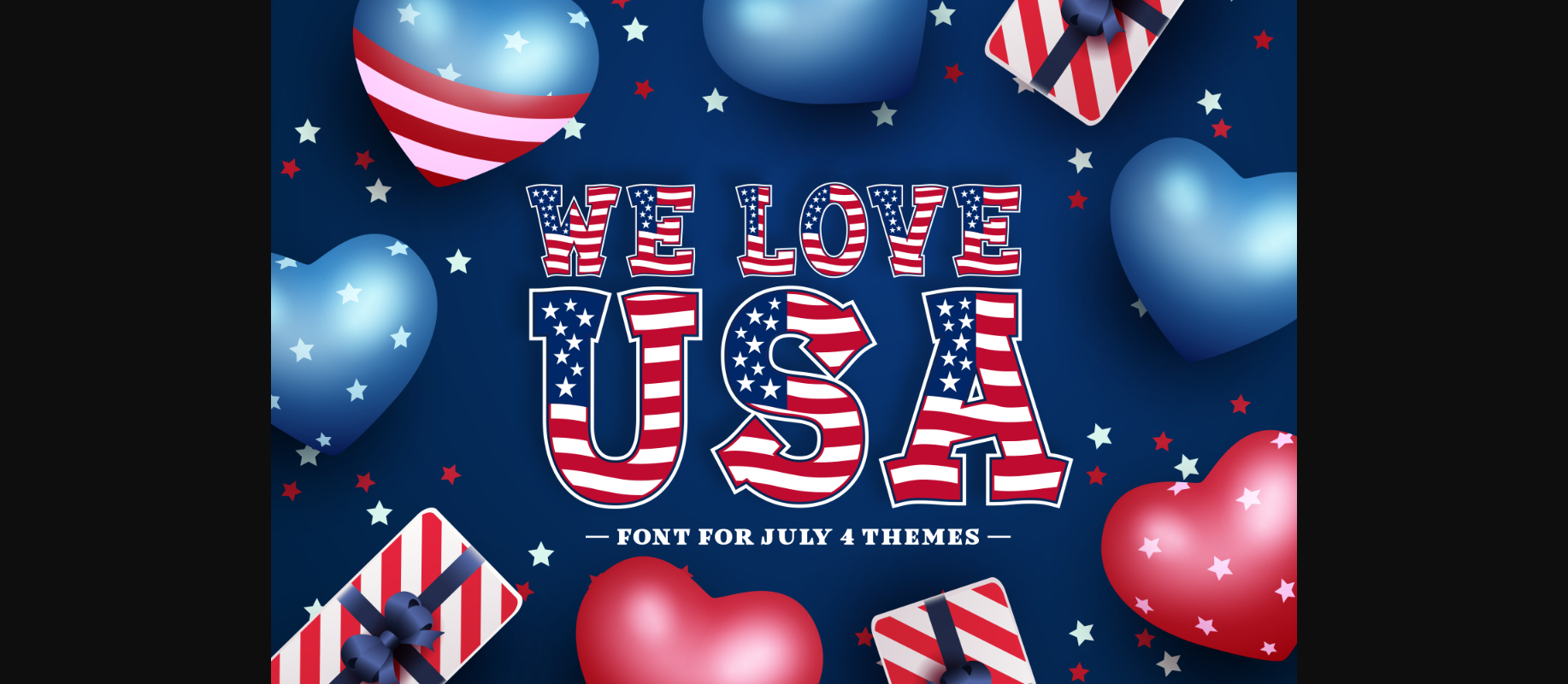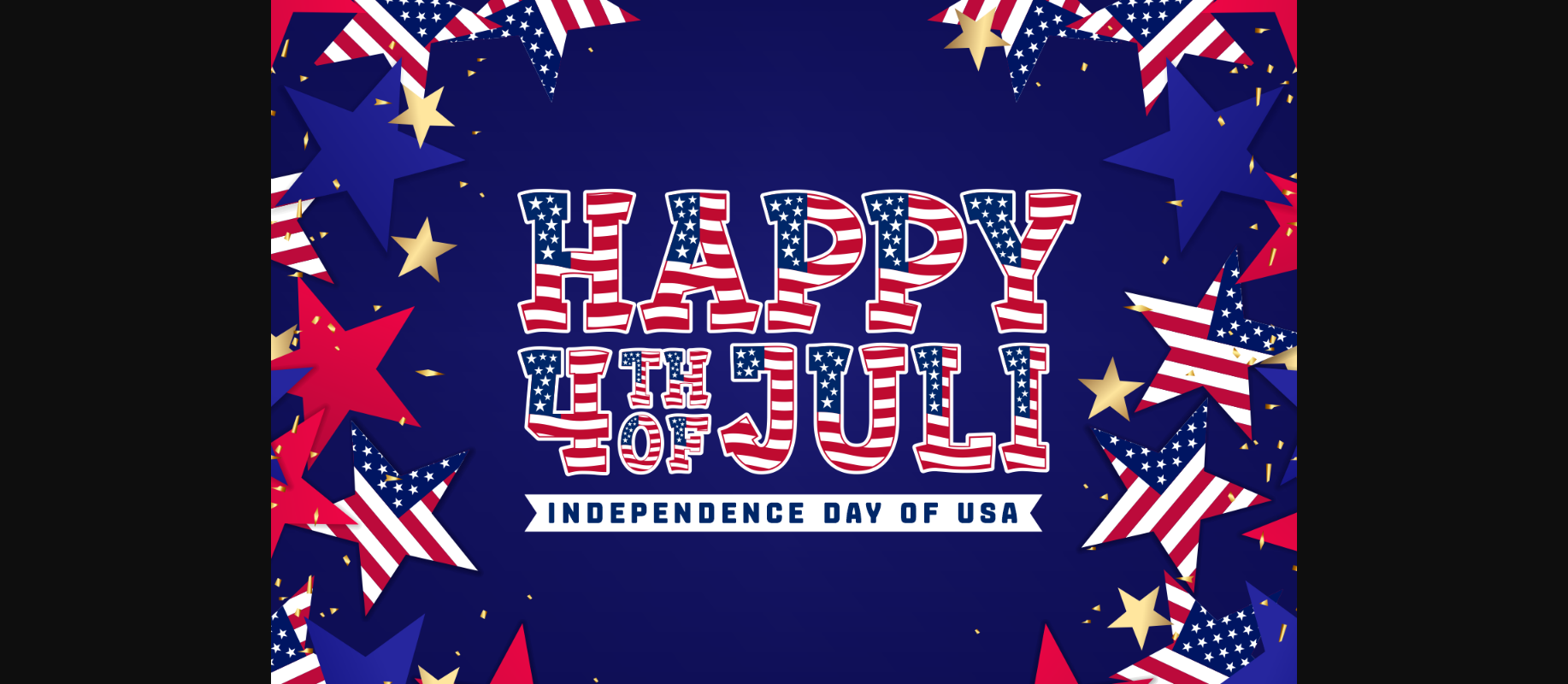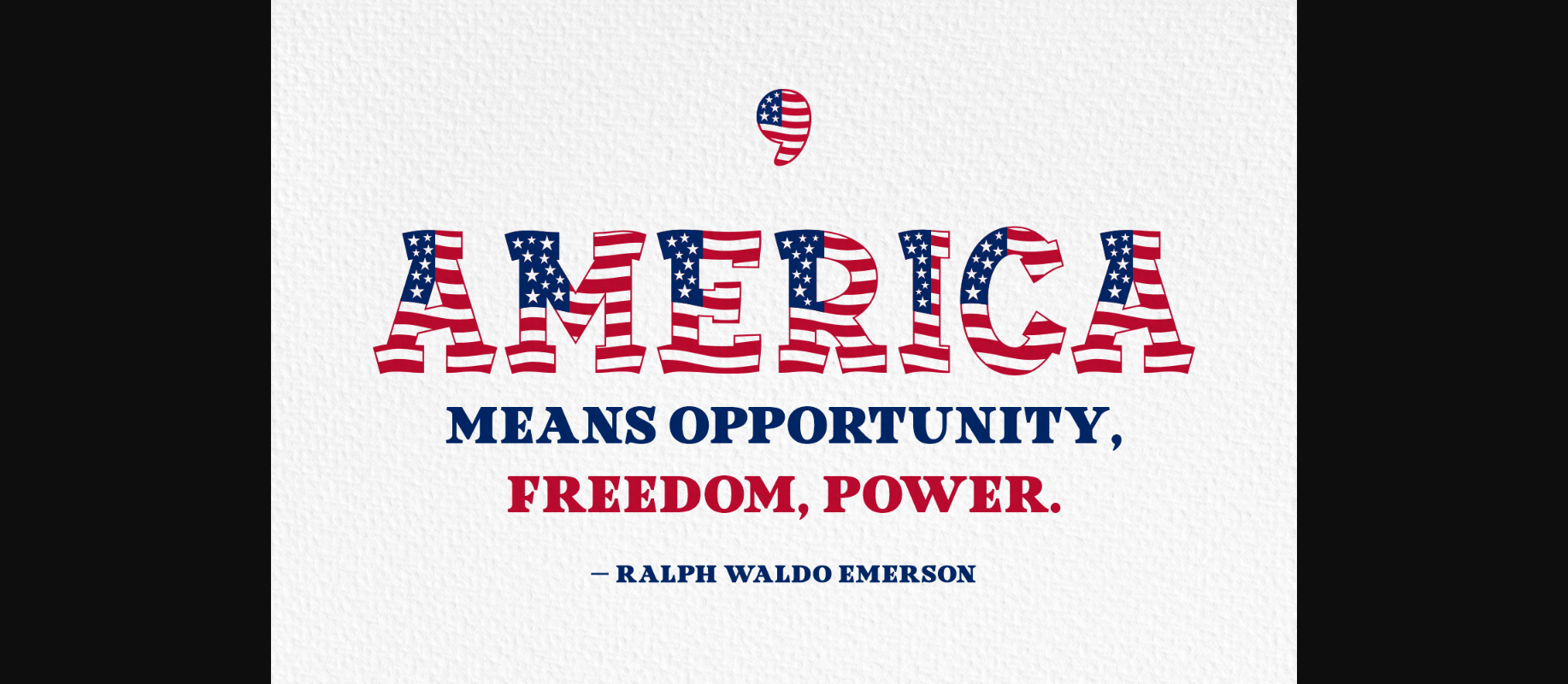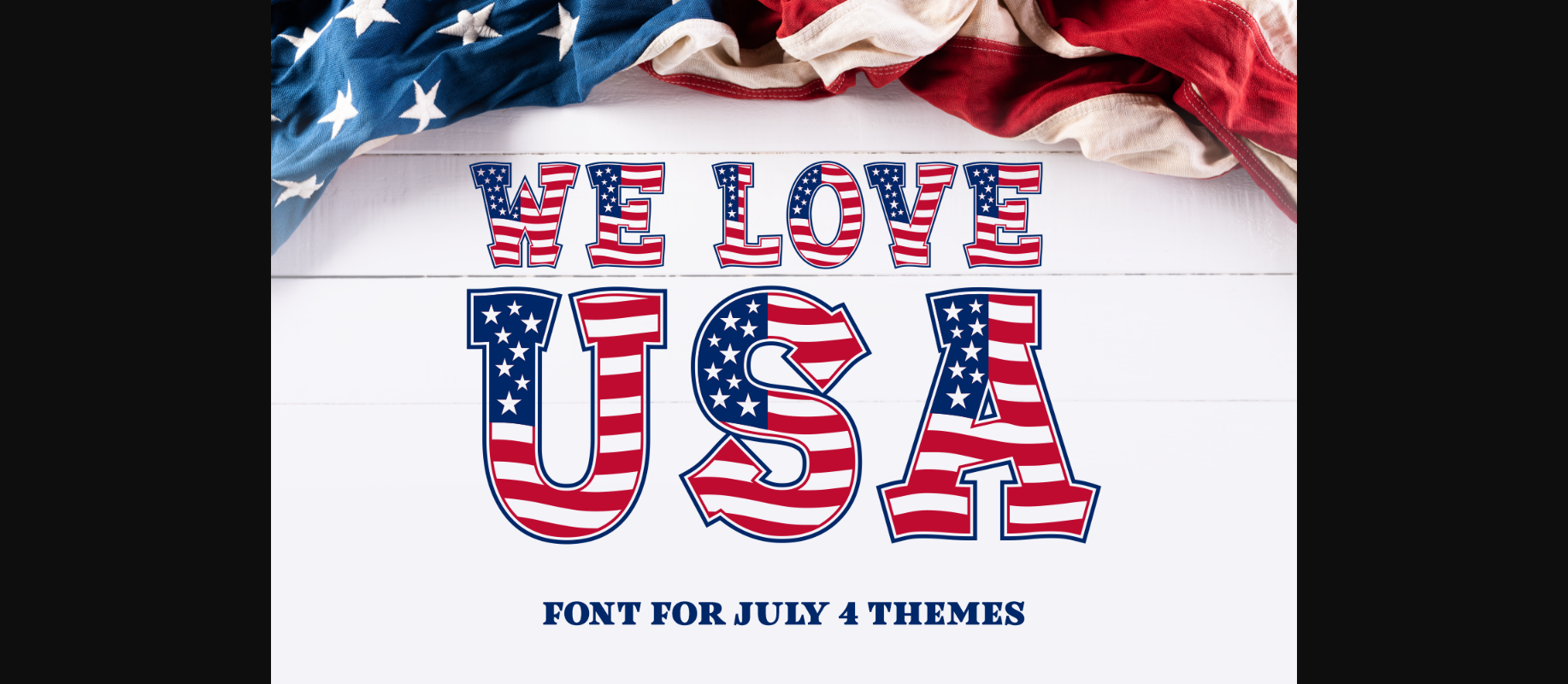
We Love USA Font
About We Love USA Font
We love USA is a bold and patriotic decorative font, perfect for true American projects! It is perfectly suitable for apparel designs, product packaging, branding, name tags, and so much more!
Please note: Font is in black and white. The colors in the preview image are for display purposes only.